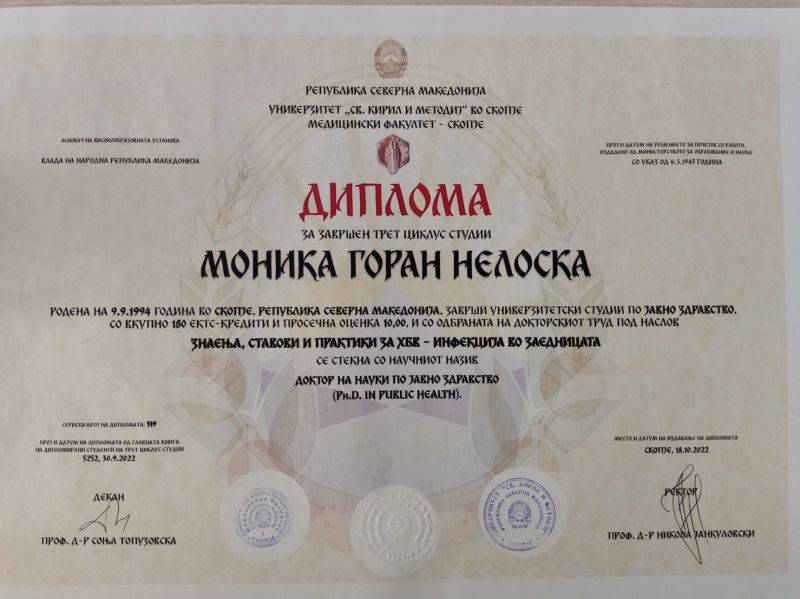
I need help identifying this font.
This is a diploma from the University of Saints Cyril and Methodius in Skopje, North Macedonia. The typeface Macedonian Ancient is very close to it, but it lacks the cupped terminals, curved stroke ends, and top serifs.